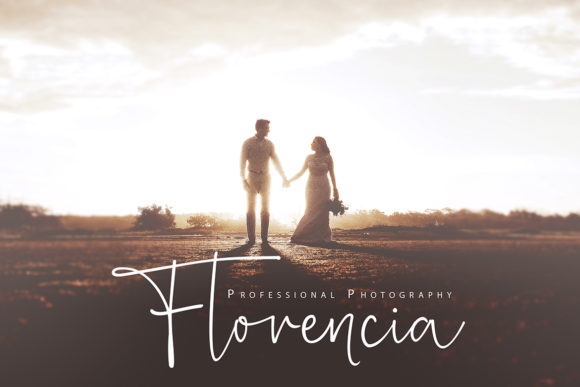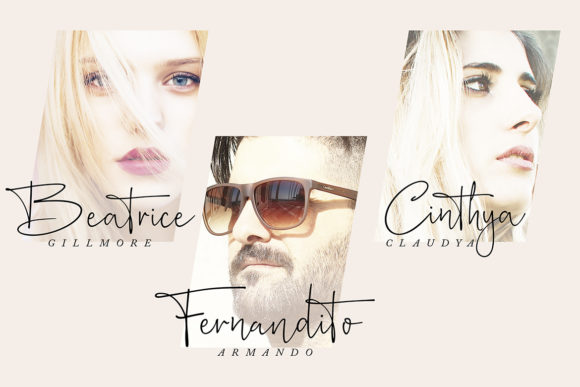
Silently Font
db-ku.com - Script & Handwritten -- Silently features widely drawn letters that give this extraordinary script an incredibly authentic vibe!